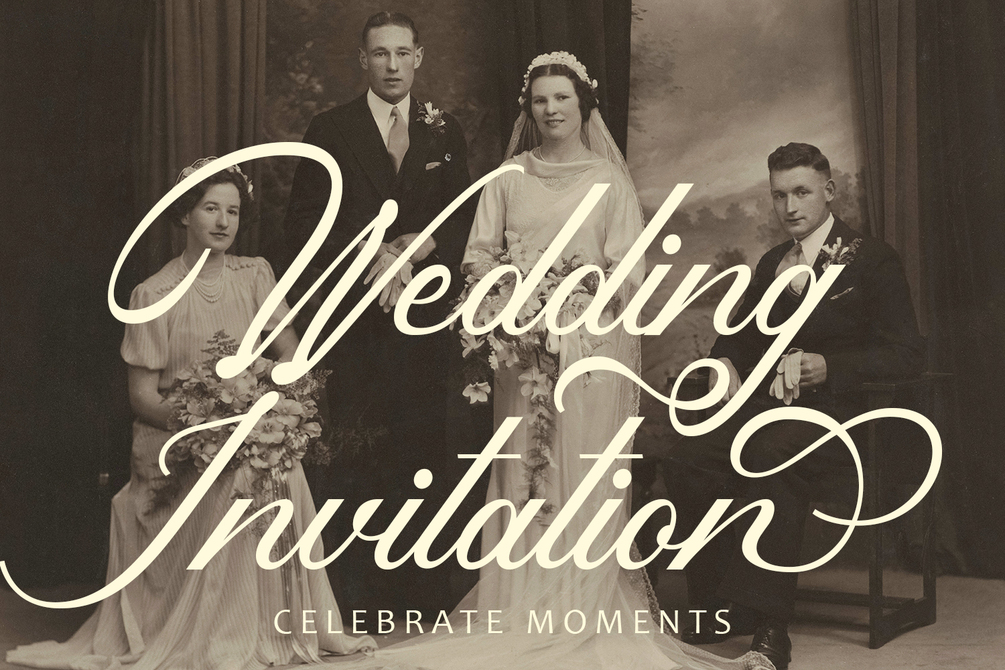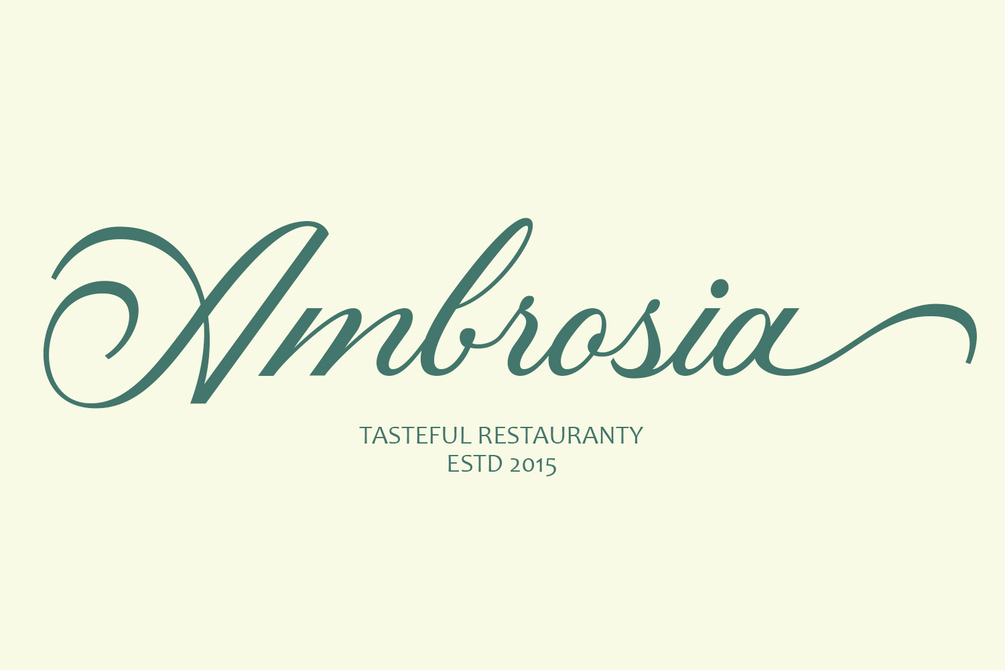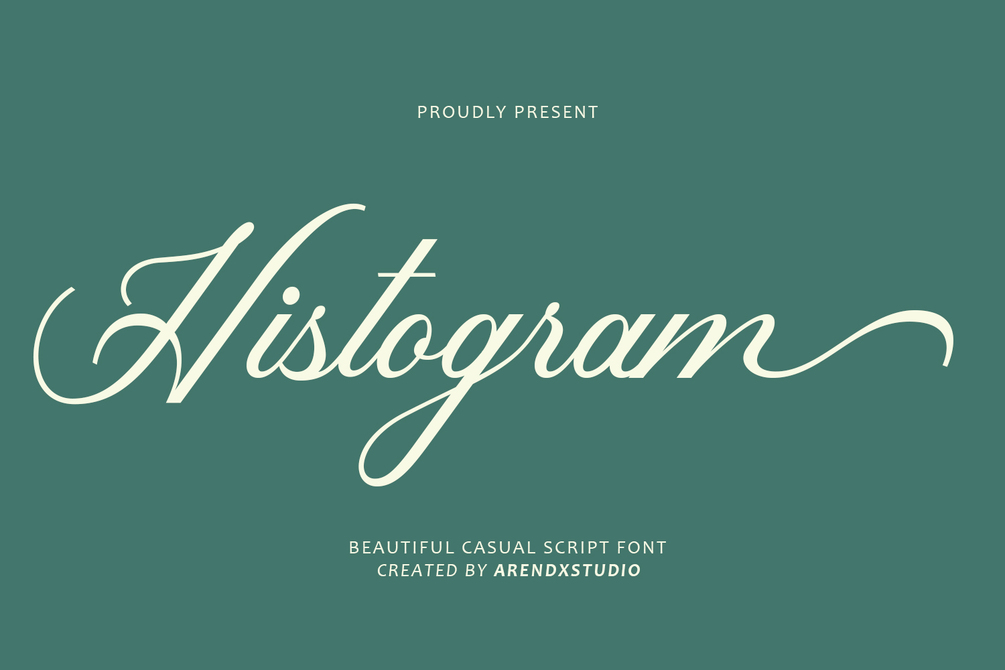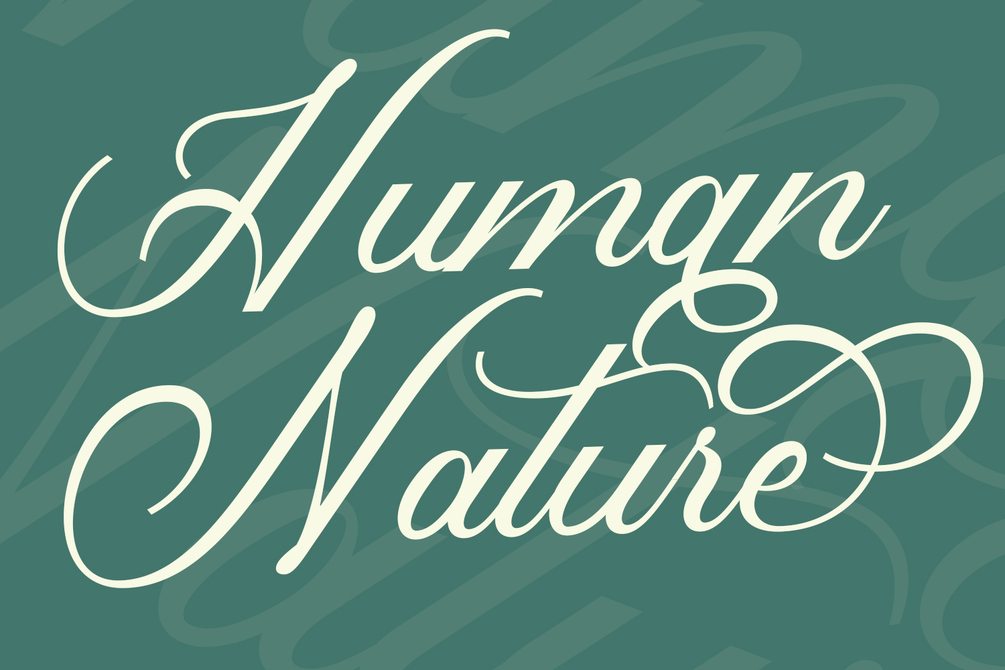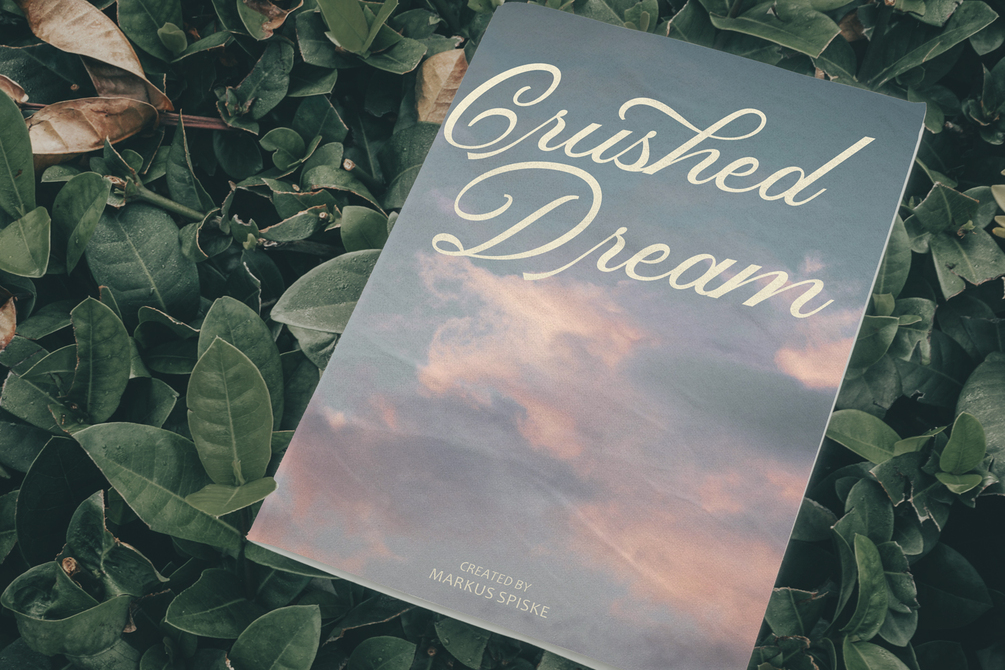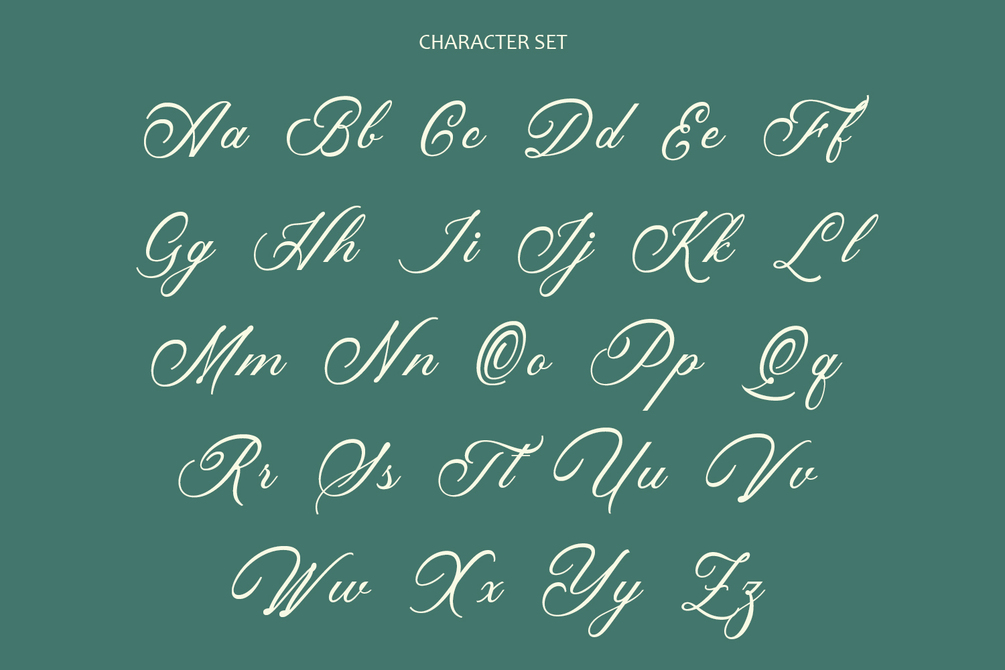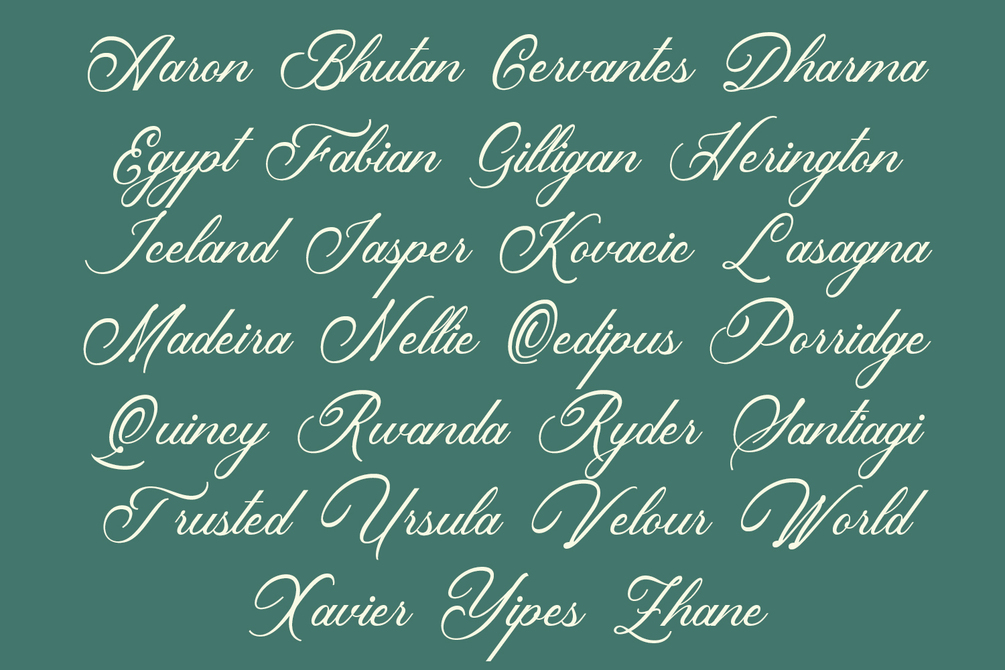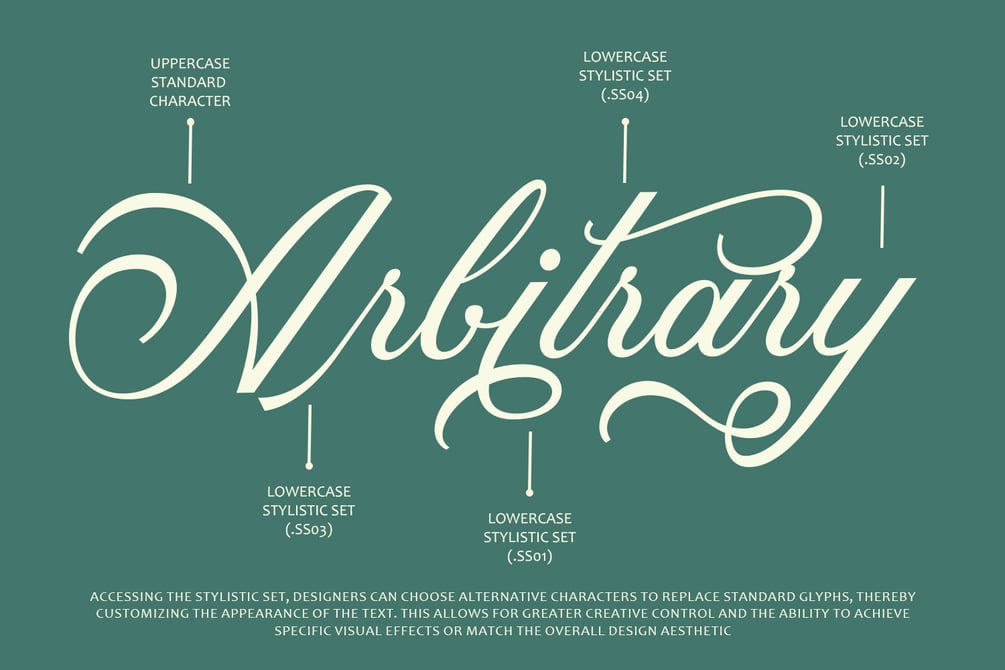
Histogram Script Font
The "Histogram" casual script font is a relaxed and informal typeface designed to emulate the natural flow of handwritten text. Here's an explanation of its key features:
1. Casual Letterforms: "Histogram" features casual and flowing letterforms with smooth curves and relaxed strokes. Each character exudes a sense of informality and spontaneity, making it perfect for designs that require a laid-back and friendly vibe.
2. Handwritten Aesthetic: The font mimics the look of casual handwriting, with slight variations in stroke width and subtle imperfections that add to its authentic charm. This handwritten aesthetic adds warmth and personality to the typography, making it more engaging to readers.
3. Versatility: Despite its casual appearance, "Histogram" is versatile and adaptable to various design contexts. It can be used for anything from greeting cards and invitations to social media graphics, blog headers, and more, adding a touch of personality to any project.
4. Expressive Typography: The casual and informal nature of "Histogram" allows designers to create expressive typographic compositions that convey a sense of friendliness and approachability. The font's relaxed letterforms make it easy to read and inviting to viewers.
5. Customization Options: Depending on the font variation, "Histogram" may offer customization options such as alternate characters, ligatures, and swashes. These features allow designers to personalize the typography and create custom looks that suit their specific design needs.
6. Readability: While "Histogram" boasts a casual and handwritten style, readability remains a priority. Each character is carefully crafted to ensure clarity and legibility, ensuring that text remains easy to read even at smaller sizes.
Overall, the "Histogram" casual script font offers a perfect blend of informality, expressiveness, versatility, and readability. Its relaxed letterforms and handwritten aesthetic make it a standout choice for designers seeking to add a touch of warmth and personality to their projects.